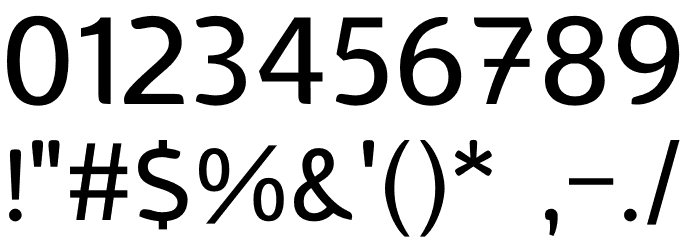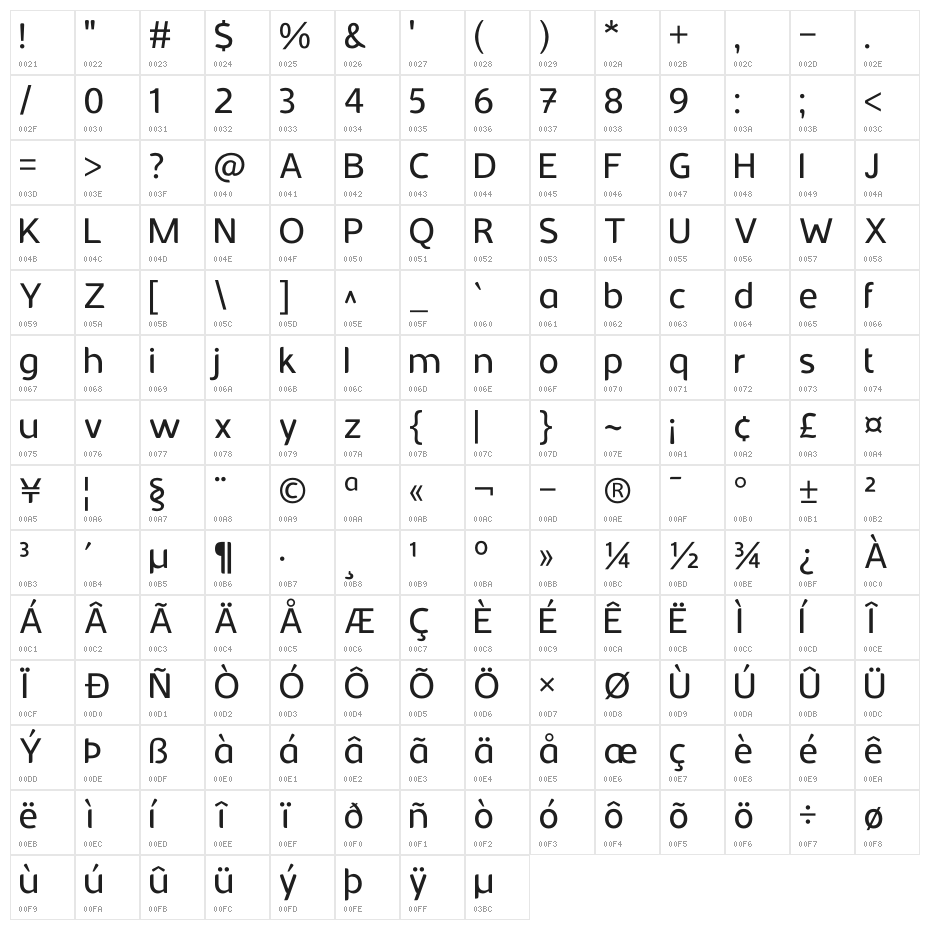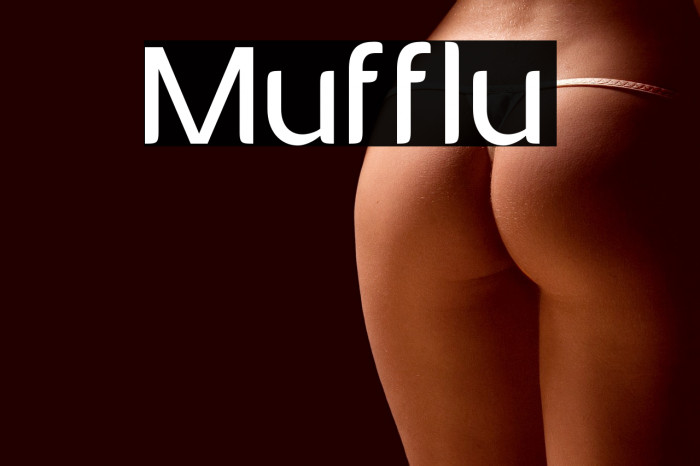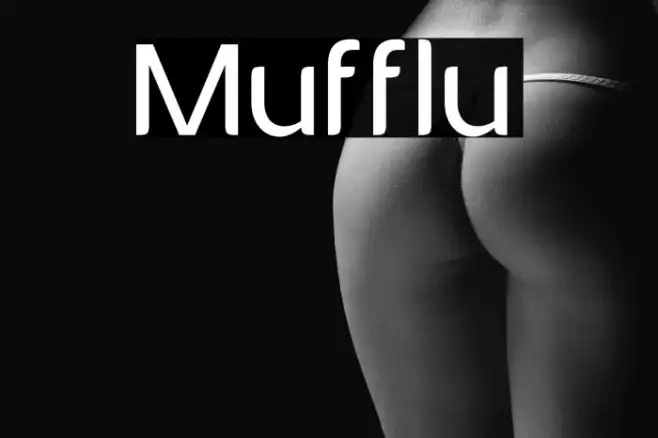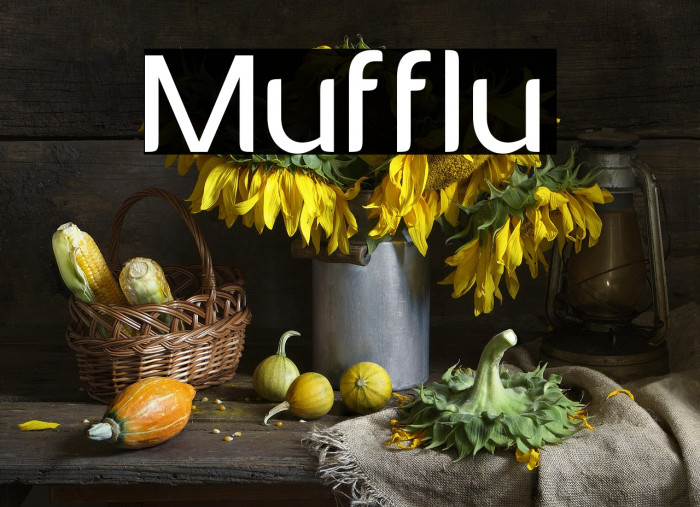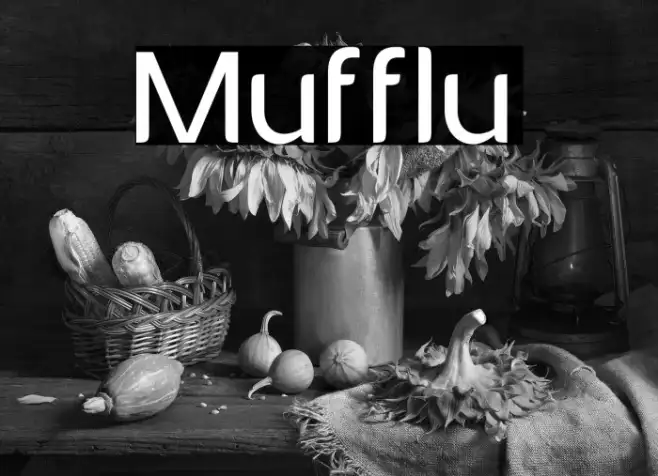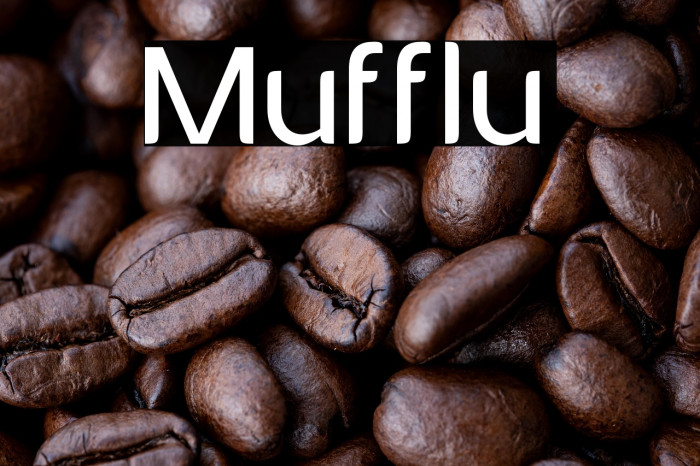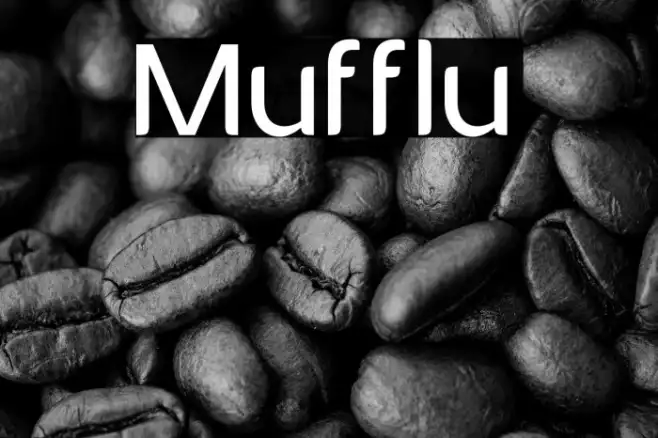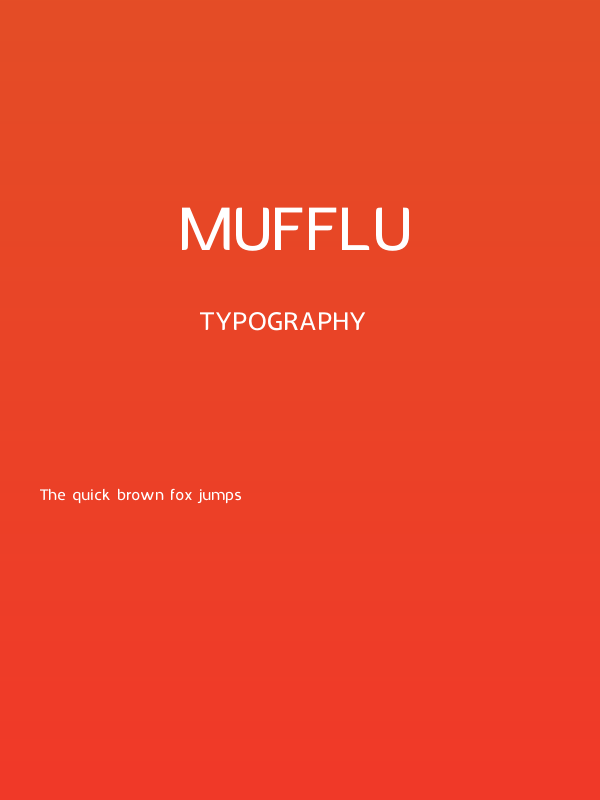
Mufflu Font
Mufflu Description
This font features a clean and modern sans-serif design with smooth curves and a slightly rounded appearance. The characters are well-proportioned, offering a harmonious balance between the height and width of each letter. The uppercase letters are bold and assertive, while the lowercase letters maintain a friendly and approachable feel. The numerals are clear and easy to read, making them suitable for various applications. The special characters are distinct and well-integrated into the overall design, ensuring consistency across all glyphs. This font's simplicity and elegance make it versatile for both digital and print media.
Use CaseHeadlines, Body text, Logos
Proposed ProjectsIdeal for branding, web design, advertising, and editorial layouts.